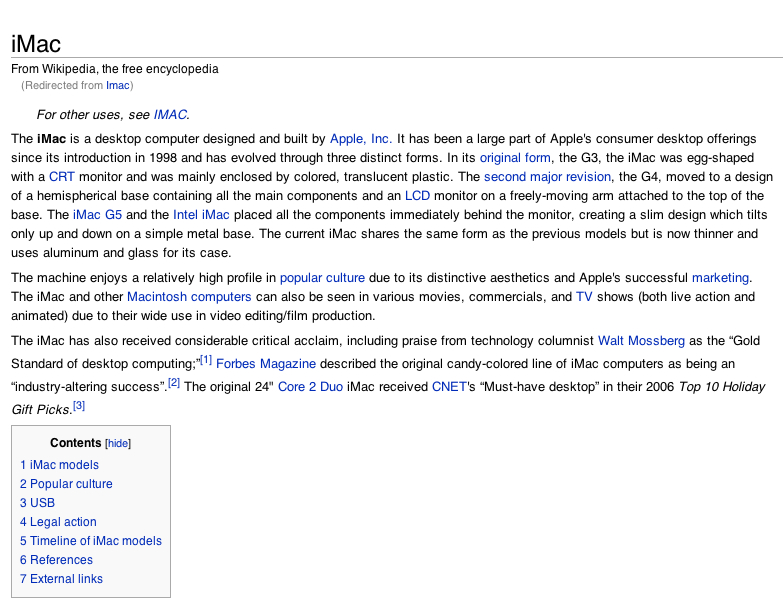
During my time at the apple store trying to decide on the right imac for me (still undecided) i noticed the font whilst browsing in safari was very "bitty" and blurred. Is this something apple plan on addressing in leopard and lastly is there a quick fix for it in tiger?
It really depends on whether you like OSX font smoothing or not.
This issue is similar to the new iMac glossy screen. People either love it or hate it.
Personally I use TinkerTool to turn off font smoothing and force applications to aswell. This is because I am reading/writing text all day, so the blurry fonts drove me mad!
Here is some screen shots to show the difference (you'll need to double-click each one to show the full picture) ...
(1) Normal OSX with font smoothing
(2) OSX without font smoothing
(3) WinXP firefox (running under vmware)